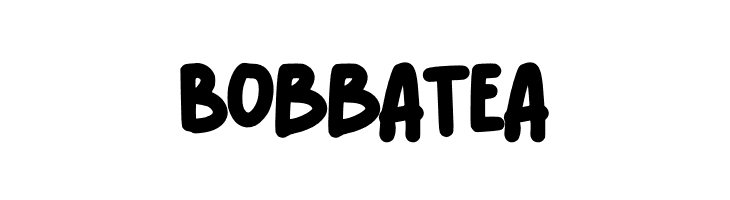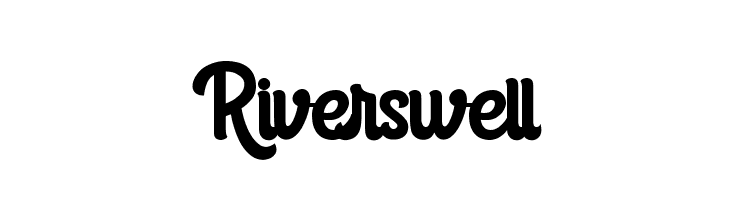
A casual, hand-drawn marker-style font with a creative and authentic feel.
A playful, hand-drawn font with tall, narrow characters and a whimsical charm.
A decorative script font with elegant swashes and high contrast strokes.
A decorative script font with flowing, interconnected letterforms and intricate swashes.
A playful, narrow font with a hand-drawn, whimsical style.
A bold, geometric monospaced font with a modern, industrial aesthetic.
A whimsical, Halloween-themed decorative font with spooky elements.
A flowing, elegant script font with ornate details and smooth connections.
A classic serif font with elegant curves and a calligraphic touch.
A bold serif font with high contrast and a classic yet modern style.
A semi-bold serif font with elegant curves and classic style.
An elegant, medieval-inspired serif font with sharp, angular serifs and decorative elements.
A tall, narrow font with strong vertical emphasis and uniform strokes.
A modern, sleek font with tall, narrow characters and a minimalist design.
A modern yet classic font with elegant curves and bold strokes.
A modern serif font with clean lines and elegant curves.
A fluid and expressive handwritten style with a personal touch.
A decorative font with intricate geometric patterns and bold strokes.
A bold, geometric font with angular, interlocking patterns.
A bold, geometric font with a futuristic and digital aesthetic.
A bold, graffiti-inspired font with sharp, jagged edges and dynamic forms.
A modern, geometric sans-serif font with rounded edges and uniform width.
A bold, 3D font with lined patterns and geometric shapes.
A bold, playful font with rounded edges and a hand-drawn feel.
A bold, pixelated font with a retro video game aesthetic.
A bold, angular font with a modern, geometric style.
常见问题 — 最新字体
现在大家都在用哪些新字体?
流行变化很快,但极简无衬线与个性鲜明的展示体当前更受欢迎, 特别适合移动端内容与现代品牌风格。
有哪些值得尝试的 5 款新字体?
近期热门包括 Stylish Marker, Lets get crazy sans, Letsgetcrazy, Lets get crazy and Letsgetcrazysans 它们在清晰度与个性之间取得平衡,适用于科技品牌、编辑排版与社媒视觉。